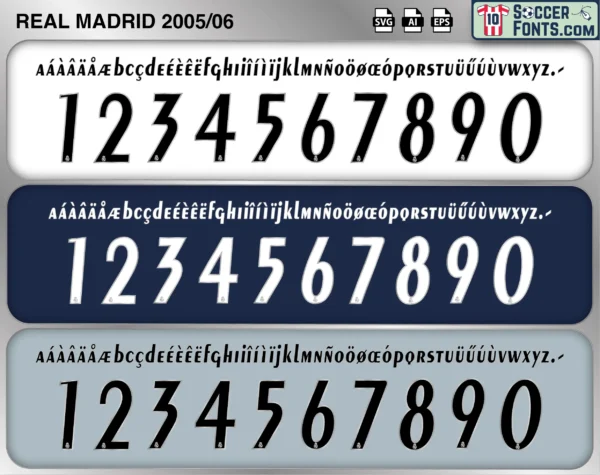
Real Madrid 2005-06 Font
The Real Madrid 2005-06 font is an editable soccer jersey lettering design in vector format inspired by the Real Madrid kit style used during the 2005-06 football season. This football font artwork is prepared for football shirt recreations, custom jersey projects, football kit mockups and sports graphic design workflows.
The 2005-06 season was a year of transition for Real Madrid as the club sought to return to the summit of Spanish and European football during the latter stages of the Galácticos era. The squad featured Zinedine Zidane, Ronaldo, David Beckham, Raúl, Roberto Carlos, Iker Casillas, Robinho and Sergio Ramos, who arrived from Sevilla before the campaign. Real Madrid experienced managerial changes throughout the season but remained one of the most talented teams in world football. Young players such as Ramos and Robinho began establishing themselves alongside experienced stars, signaling the gradual evolution of the squad.
The Real Madrid 2005-06 font became associated with the final season of Zinedine Zidane’s legendary playing career. Although the club finished second in La Liga and did not secure major silverware, the campaign remains memorable because of Zidane’s farewell before his retirement following the 2006 FIFA World Cup. Sergio Ramos also completed his first season at the Santiago Bernabéu, beginning a career that would later make him one of the club’s greatest captains. Real Madrid shirts from the 2005-06 season remain highly collectible among football shirt enthusiasts because of their connection to Zidane’s final club campaign, the emergence of Ramos and the closing years of the original Galácticos era. The Real Madrid 2005-06 font reflects an important transitional chapter in the history of one of football’s most iconic clubs.